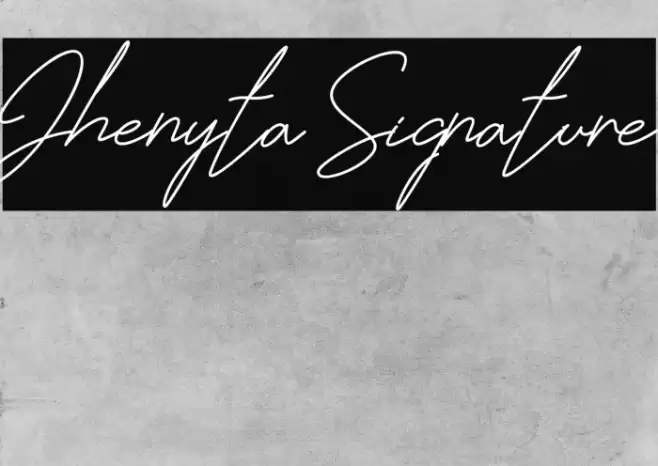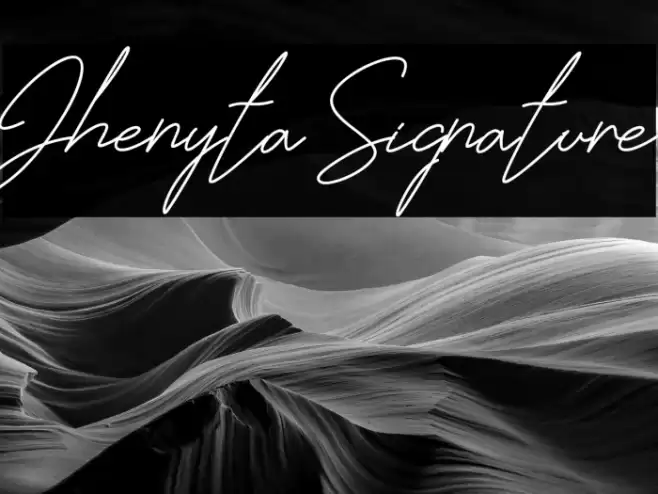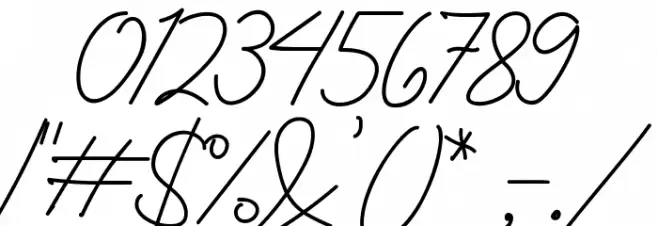
Jhenyta Signature Font
Jhenyta Signature Description
This font exudes elegance and sophistication with its fluid, cursive style. The letters are interconnected, creating a seamless flow that mimics natural handwriting. Each character is crafted with a delicate touch, featuring thin strokes and subtle curves that enhance its graceful appearance. The uppercase letters are slightly more elaborate, while the lowercase letters maintain a consistent rhythm, making it ideal for conveying a personal and artistic touch. The numerals and special characters are designed to complement the overall aesthetic, ensuring a cohesive look across all text elements.
A graceful, cursive font with interconnected letters and a natural handwriting style from Regular fonts.
- Proposed Projects: Ideal for wedding invitations, personal branding, elegant stationery, and artistic projects.
- Weight: Light
- Character Spacing: Tight
- Overall Style: Elegant
- Use Case: Logos, Invitations, Personal Branding